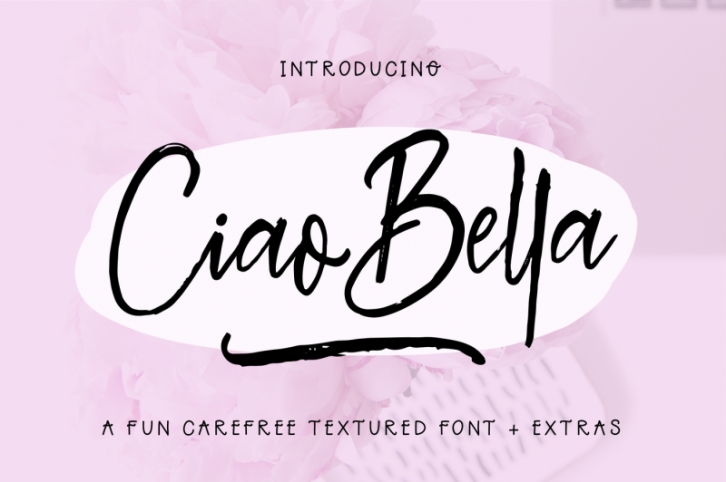
Ciao Bella Font + Extras Download
• Ciao Bella Regular - A fancy hand lettered font perfect for all projects.
• Ciao Bella Extras - 26 brush strokes to add charm to your designs.